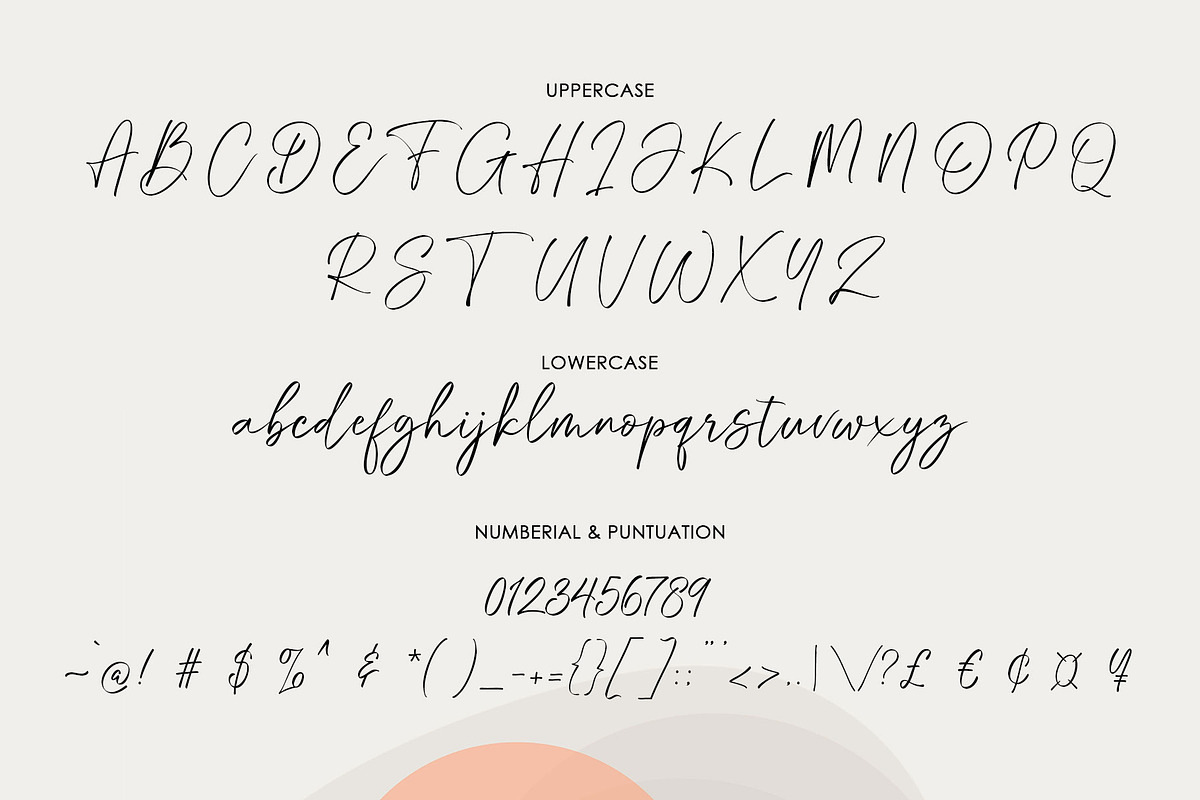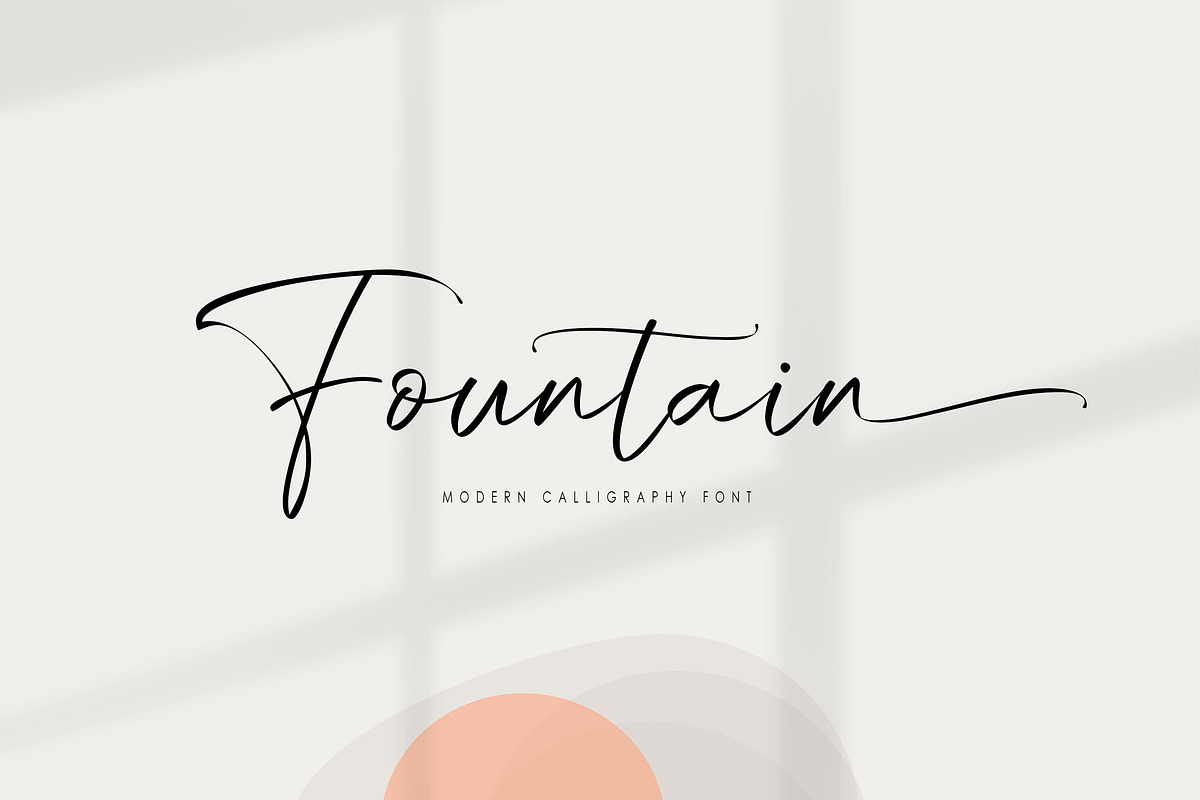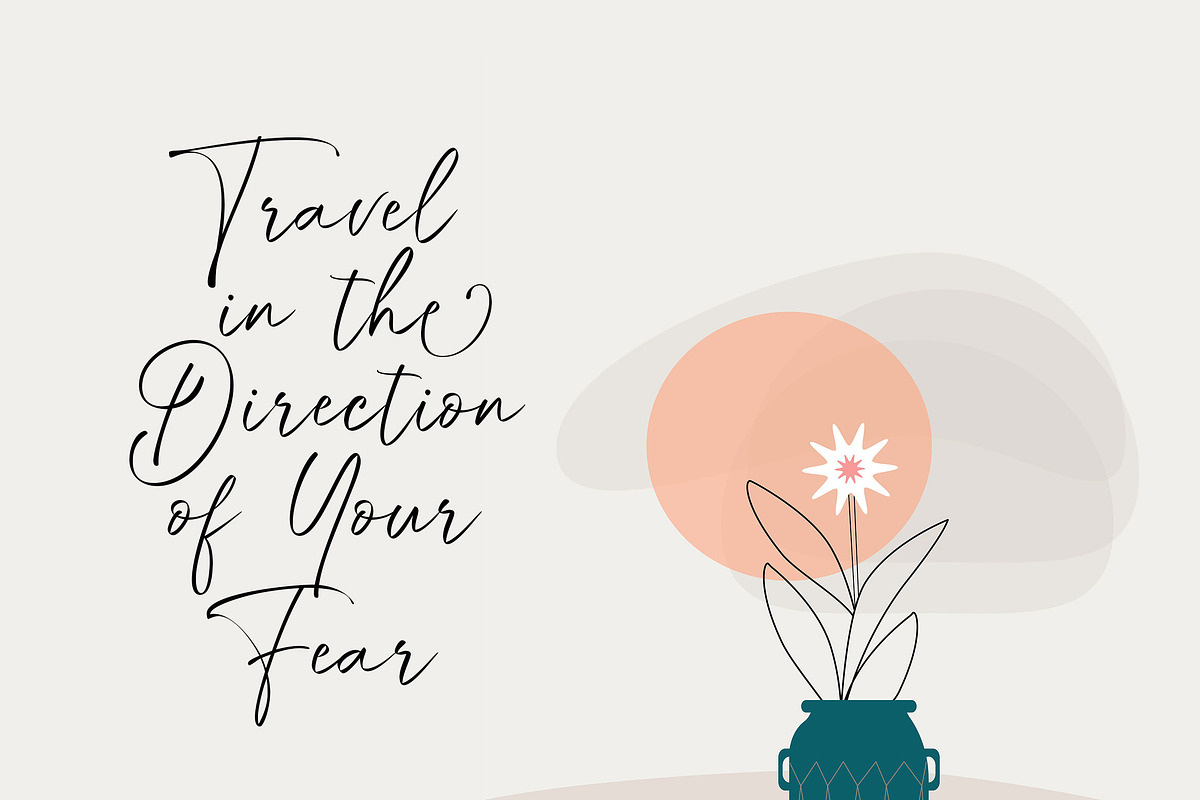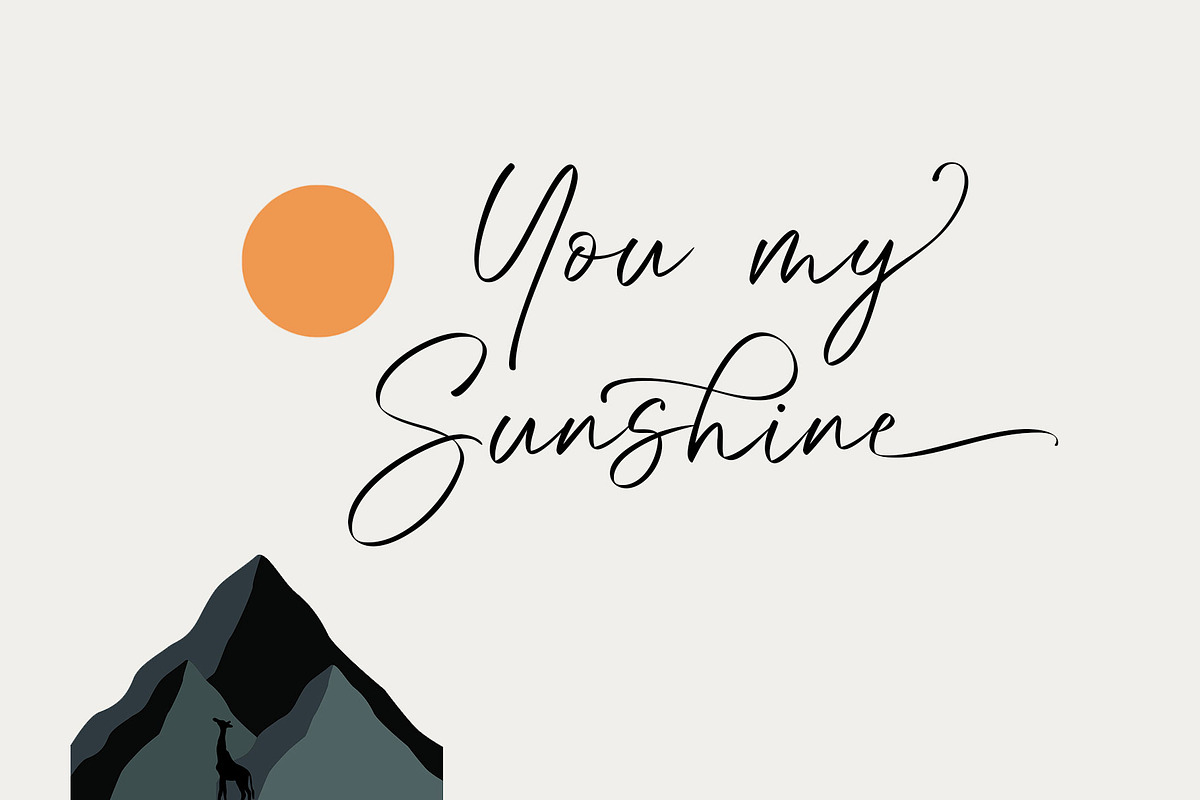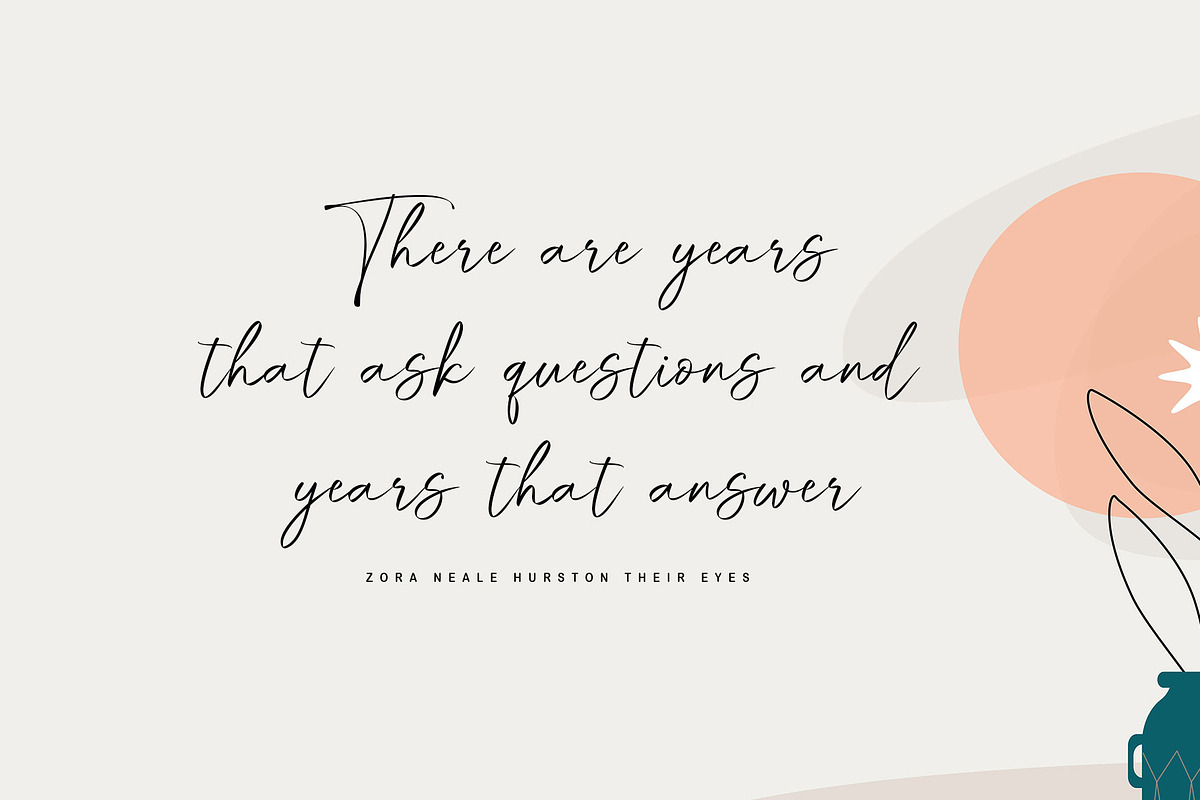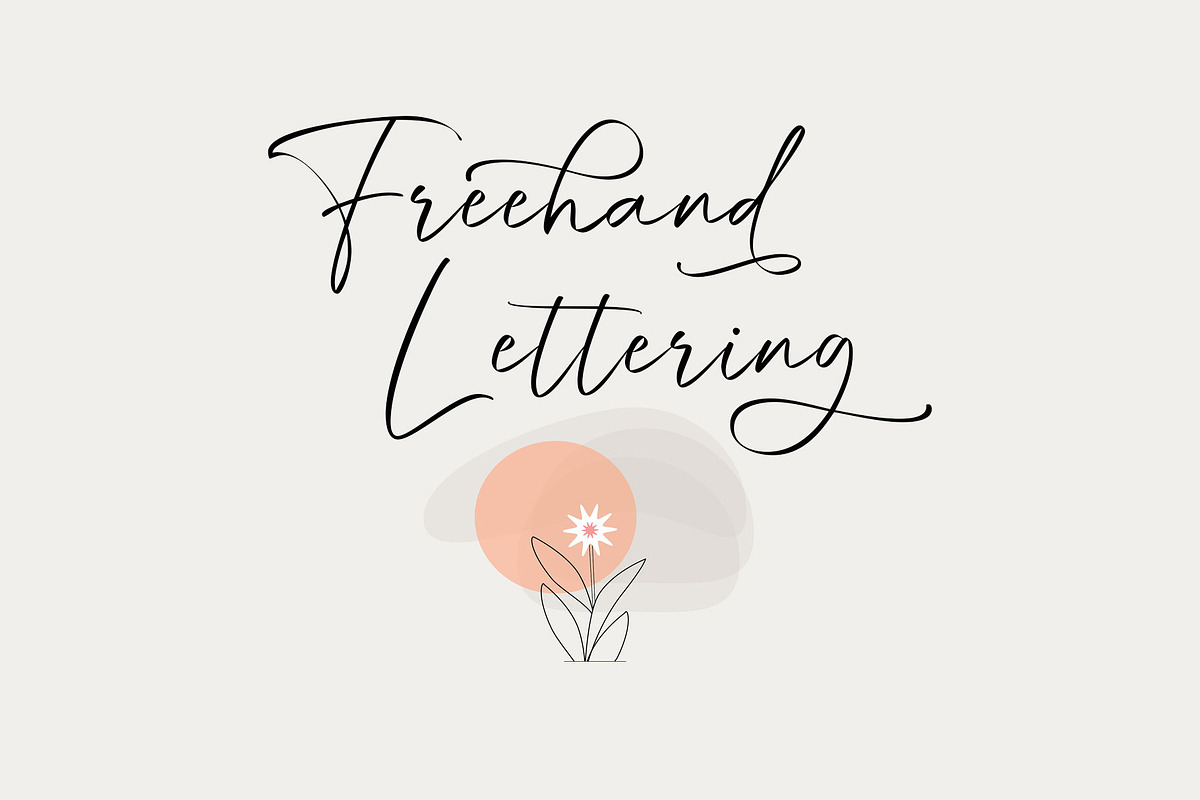
Fountain Script
Fountain is a dazzling script font. This font is neatly crafted and highly detailed. Whatever the topic, this font will be a wonderful asset to your font library, as it has the potential to enhance any creation.
If your latest project needs a bit of an elegant touch, it's time to introduce Fountain to your font library. This stylish typeface features OpenType features such as ligatures, stylistic alternatives, style sets.